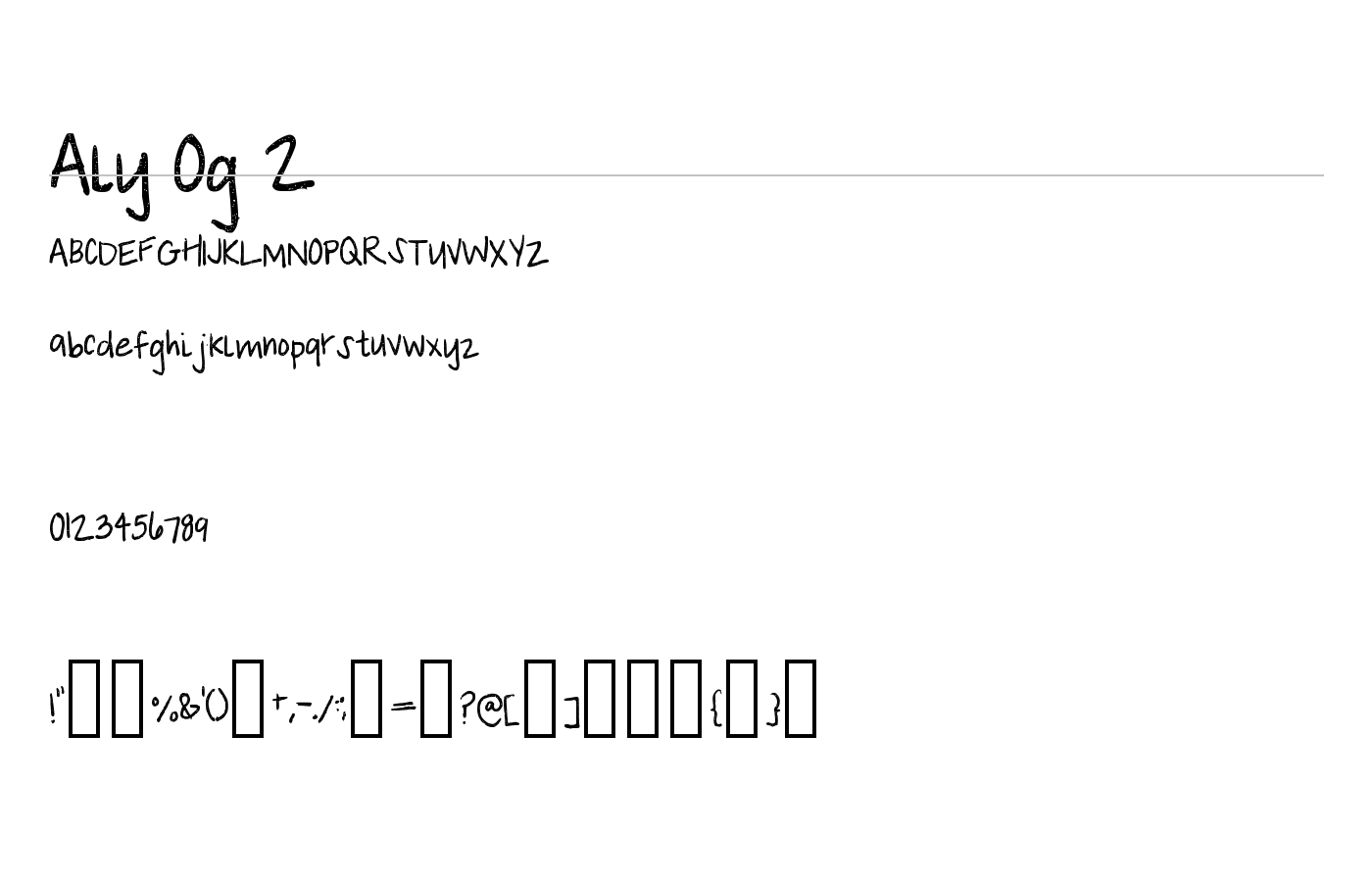
Aly Og 2 is a playful, casual handwritten sans serif font with a light weight and slightly condensed width. Its irregular strokes and uneven letterforms give it an informal, friendly personality ideal for creative, personal, or youthful designs. This font works best in logos, invitations, children’s materials, and informal headlines where a warm, approachable touch is desired.
Aly Og 2 Font